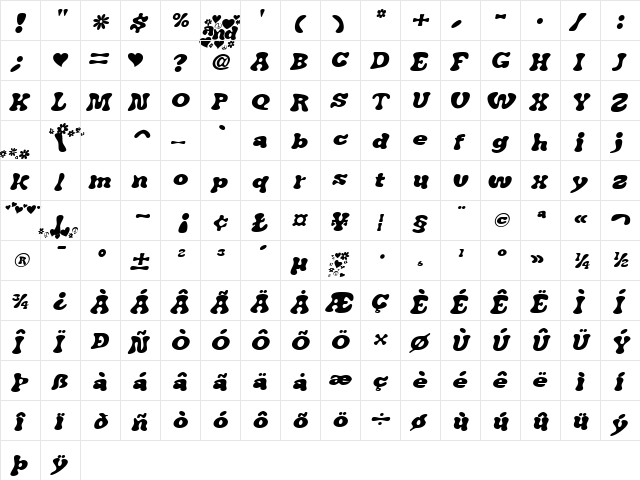
J. Airplane swash Italic Regular Font Preview
J. Airplane swash Italic Regular
J. Airplane swash Italic Regular Font Details
| Foundry | deFharo |
| Designer | defharo |
Design Context for J. Airplane swash Italic Typeface
J. Airplane swash Italic flows with the natural rhythm of handwritten lettering, making it ideal for designs that call for warmth and personal expression.
Font Pairing: Combine J. Airplane swash Italic with a simple geometric sans for maximum contrast — the tension between flowing curves and clean structure is a classic typographic pairing.
Pro Tip: Use J. Airplane swash Italic for short runs of text — names, titles, or taglines. Extended body copy in script faces tires the eye quickly.